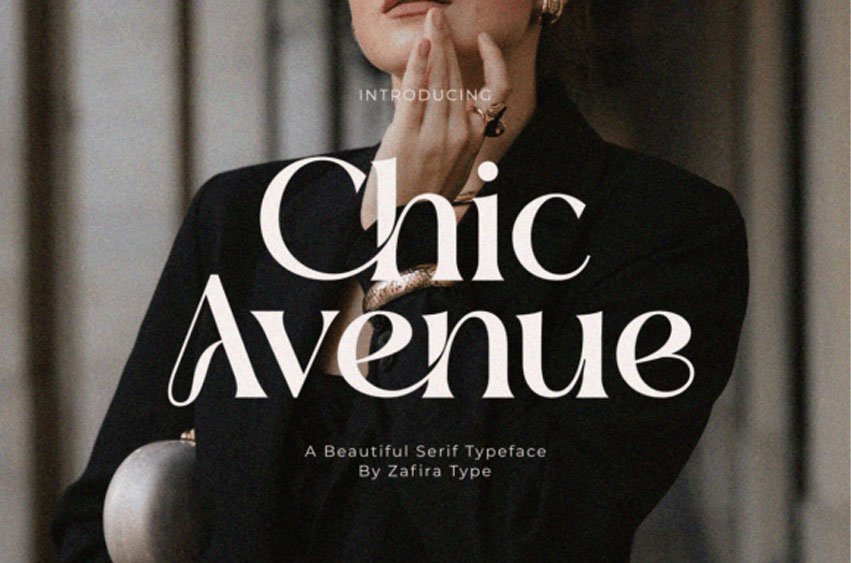
Chic Avenue Font is a harmoniously balanced serif font, designed to perfection. Each character is gracefully molded, featuring soft, sweeping curves that promise a luxurious appeal without compromising on readability. Ideal for enriching branding aesthetics, creating emblematic logos, crafting invitations, and driving impactful marketing designs – Chic Avenue is the perfect tool.
Bridging the gap between the past and the present, this font effortlessly introduces a layer of elegance to your design projects. With Chic Avenue, elevate your designs with a hint of professionalism and a dash of sophistication.